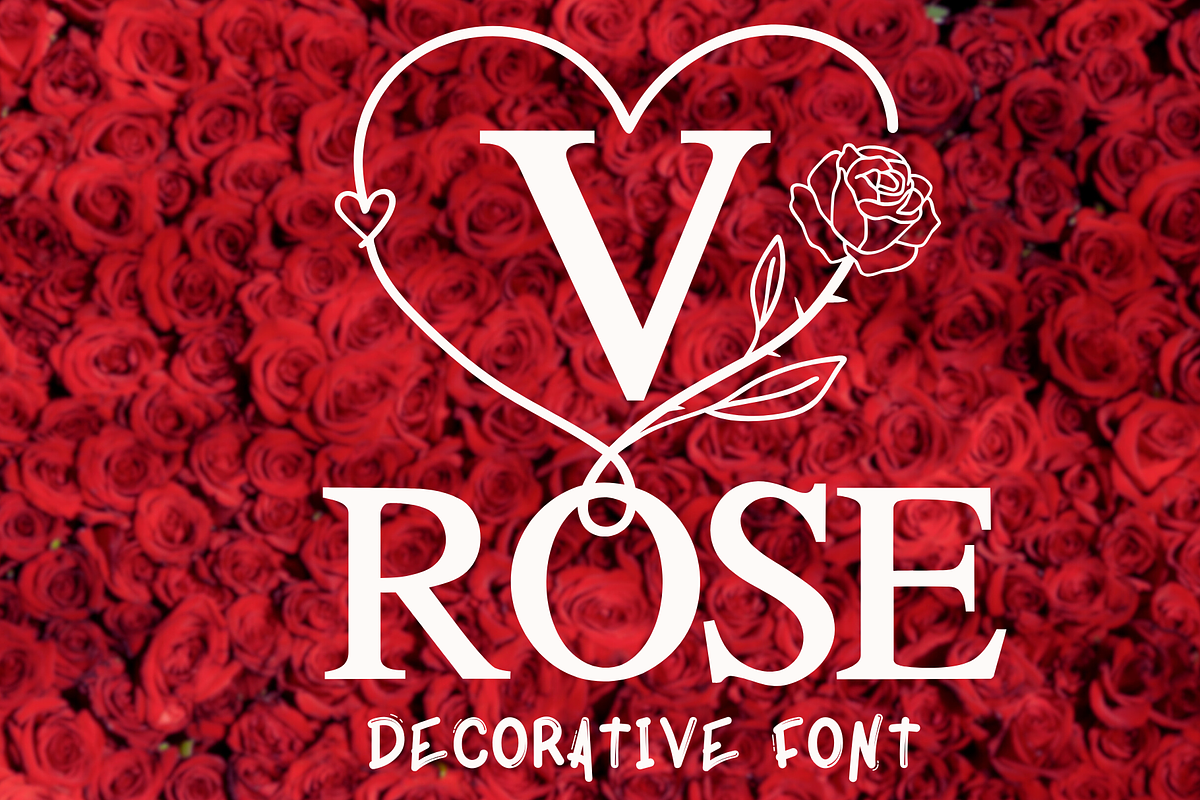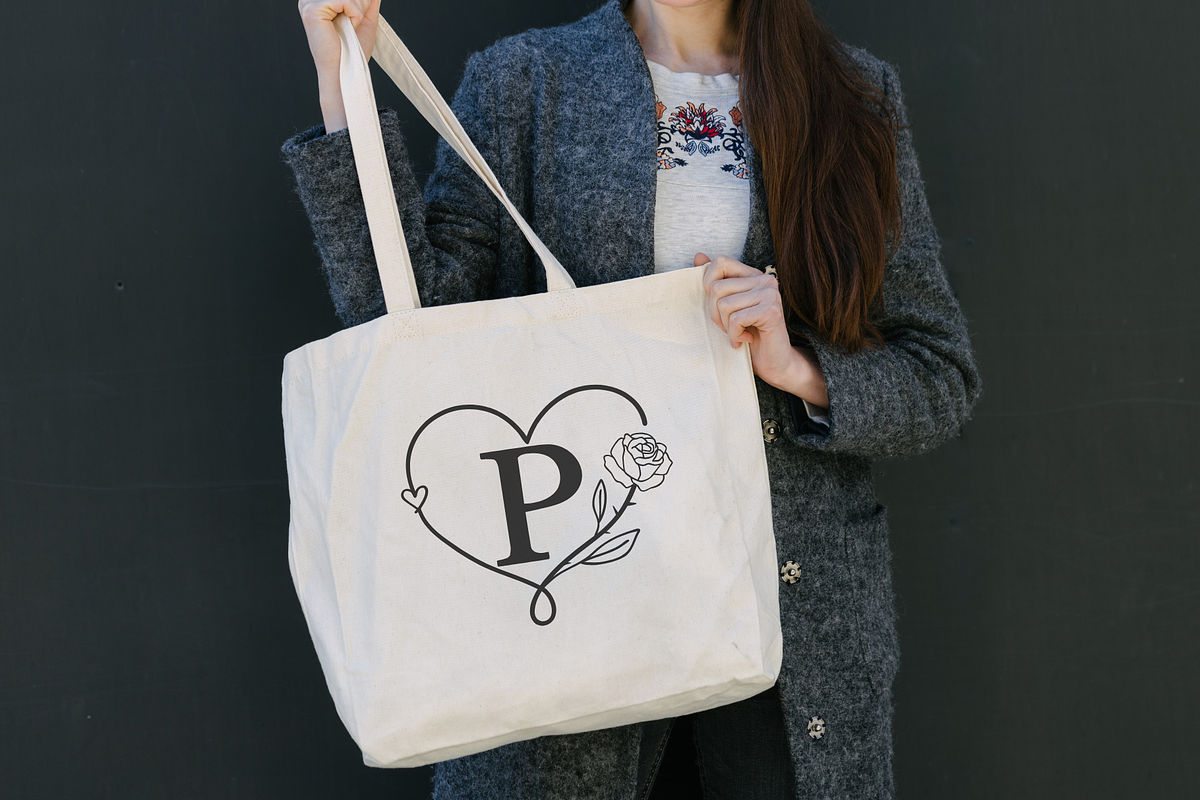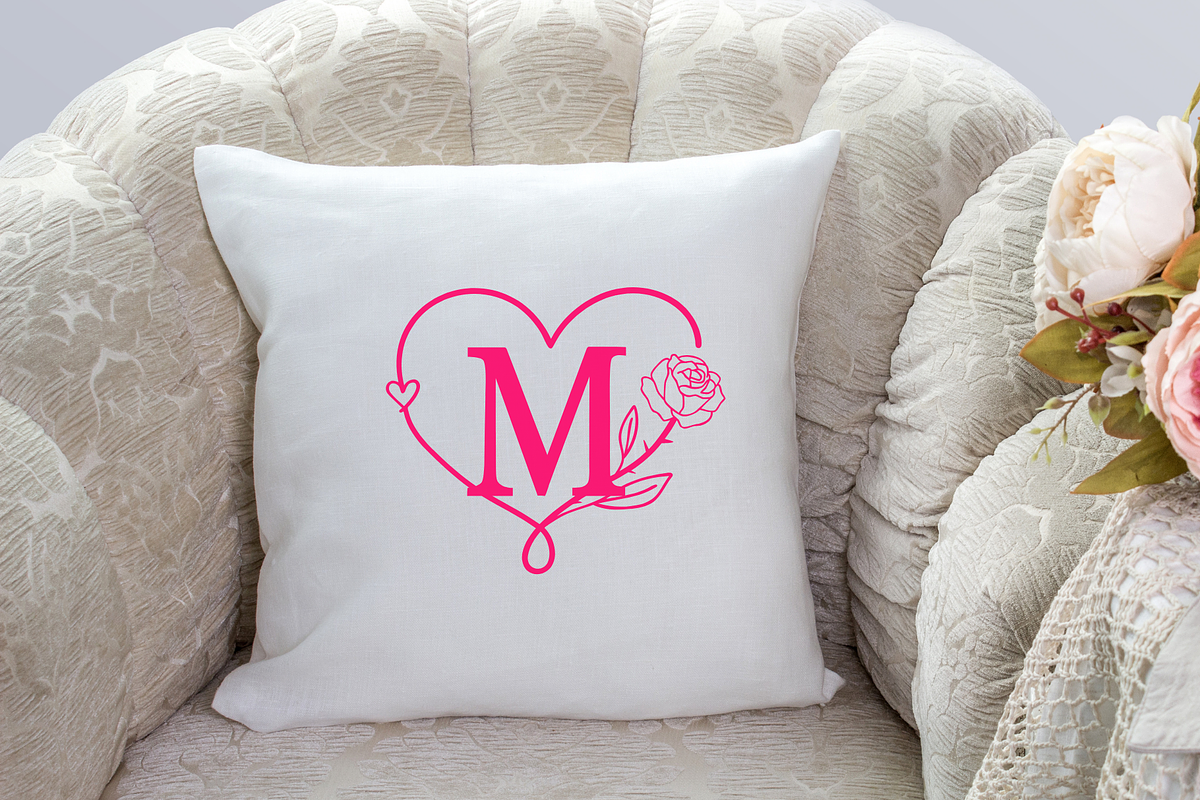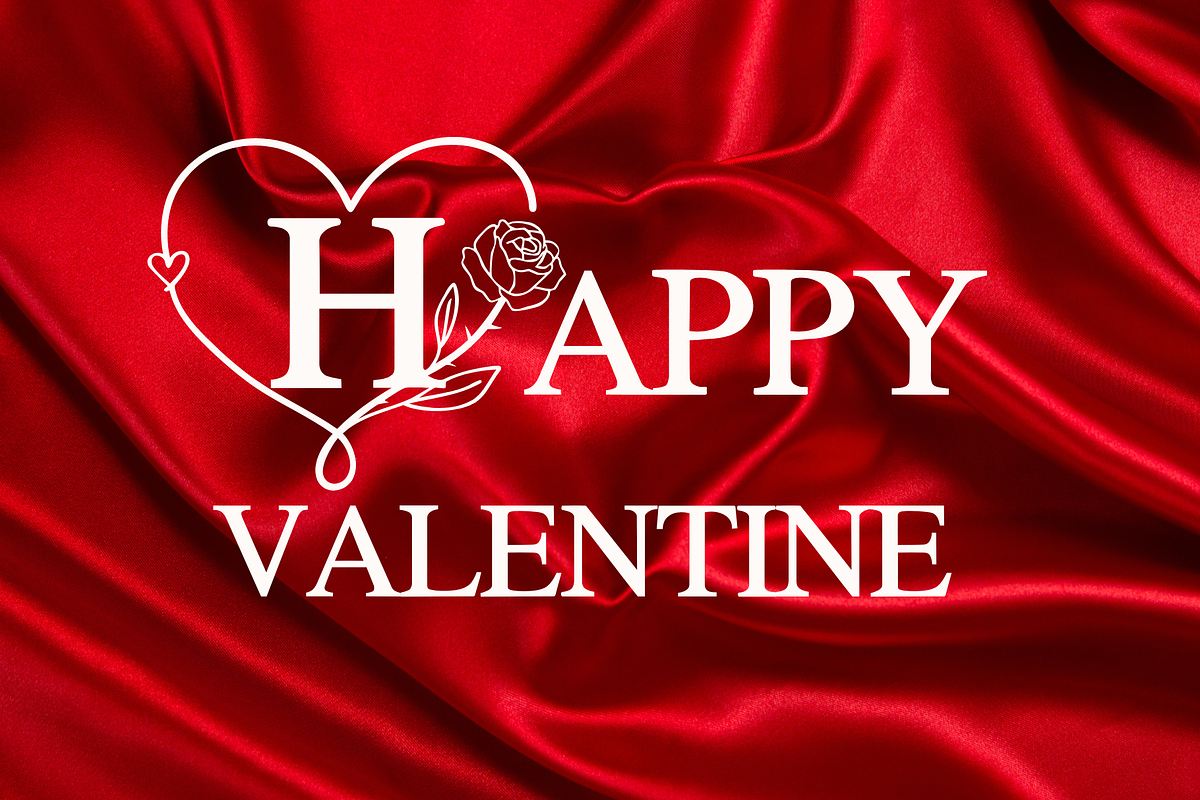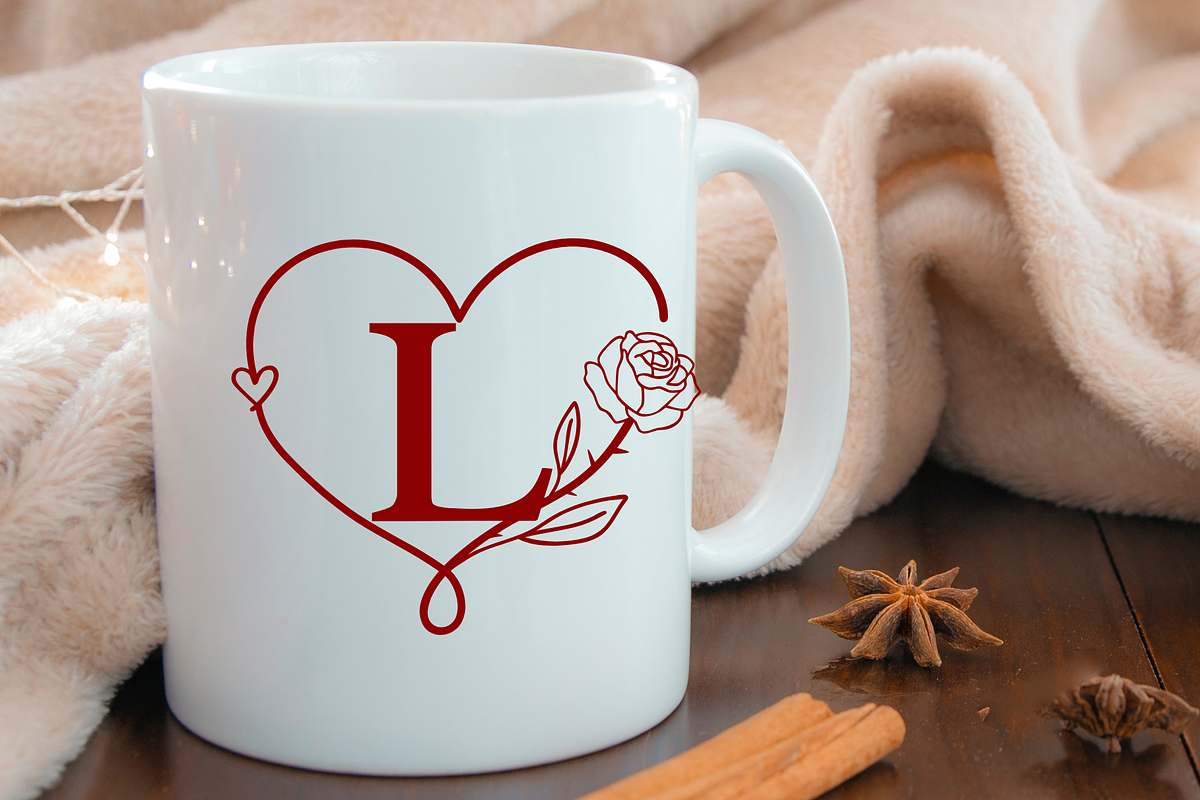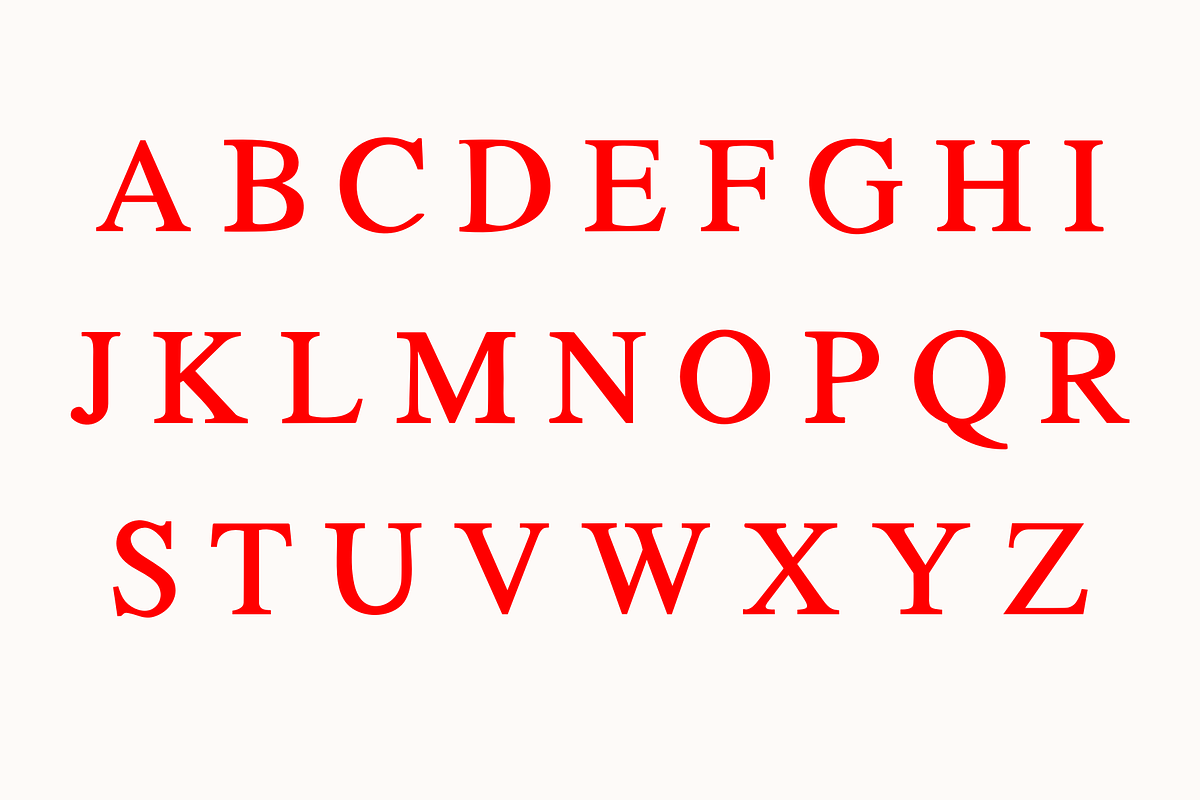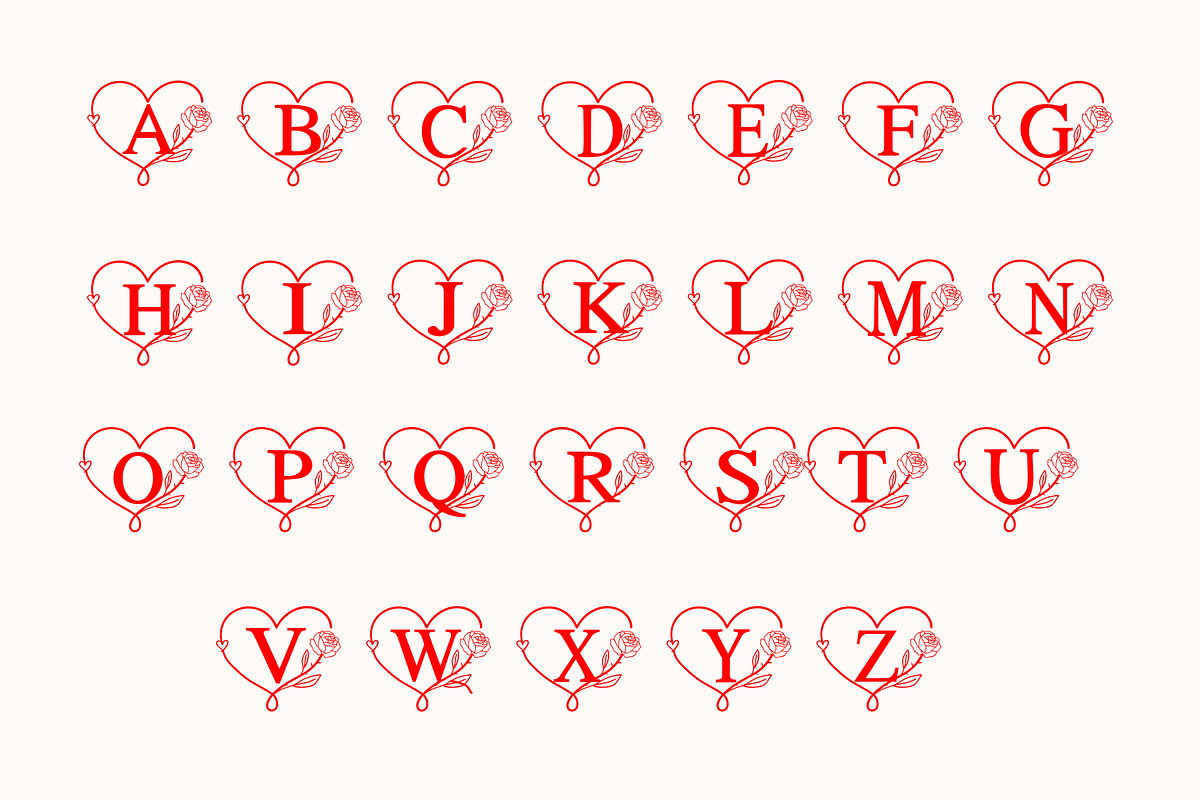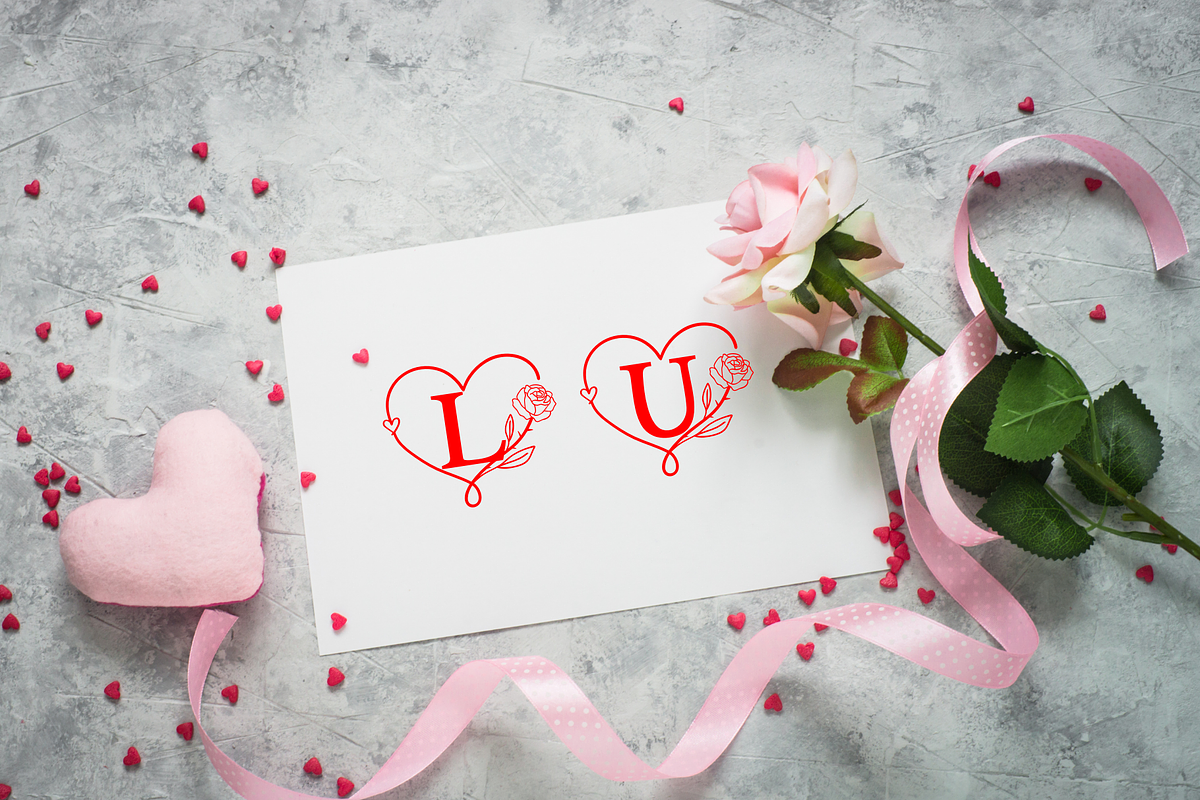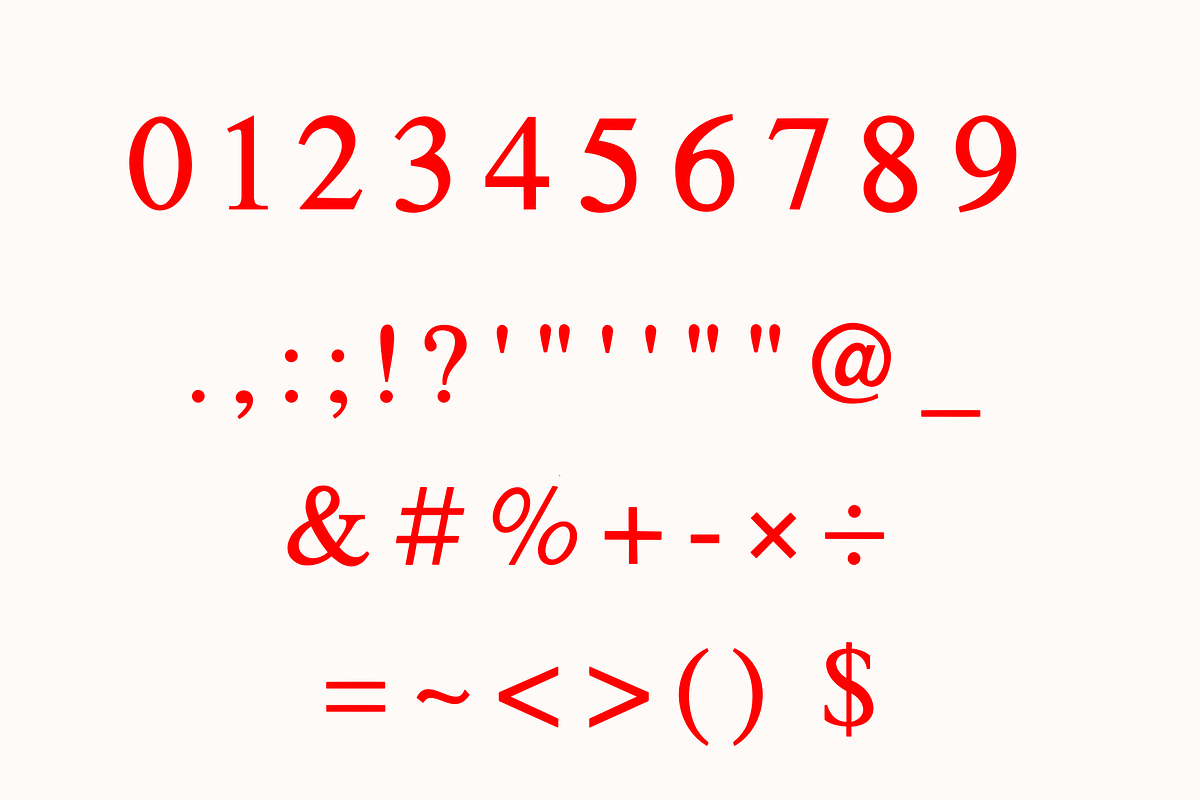
Valentine rose
V Rose is a stunning decorative font inspired by love and elegance. Featuring intricate rose and heart details, this font is perfect for romantic projects, wedding designs, Valentine's Day cards, branding, or any creative endeavor that needs a touch of beauty and sophistication. V Rose combines bold characters with decorative elements to create a unique and captivating design that will make your work stand out.